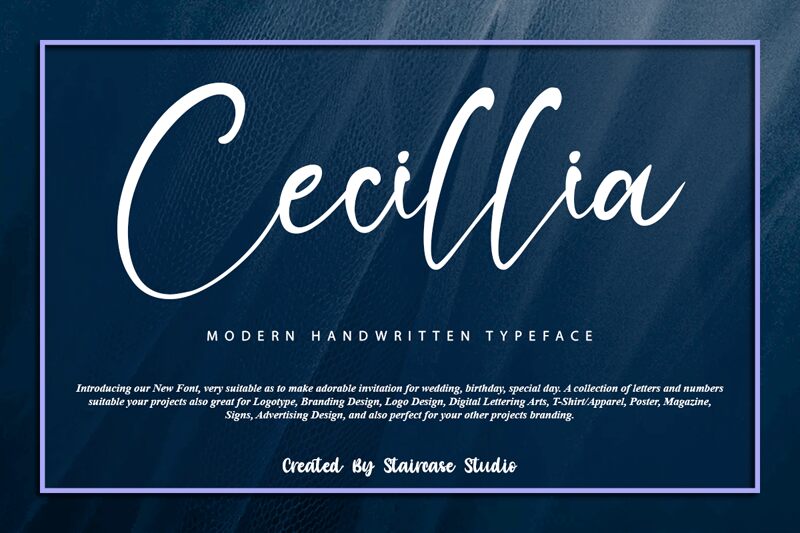
Cecillia
Cecillia, designed by Staircase Studio, is a modern handwritten font with a light weight that exudes elegance and sophistication. Its effortless curves and fluid strokes create an organic feel that's both approachable and refined. This versatile font is perfect for high-end brands seeking a touch of class in their logo, product packaging, or website design. It's also ideal for wedding invitations, greeting cards, and other luxury stationery items. With its delicate yet confident style, Cecillia is the perfect choice for any project that requires a touch of modern chic paired with classic elegance.